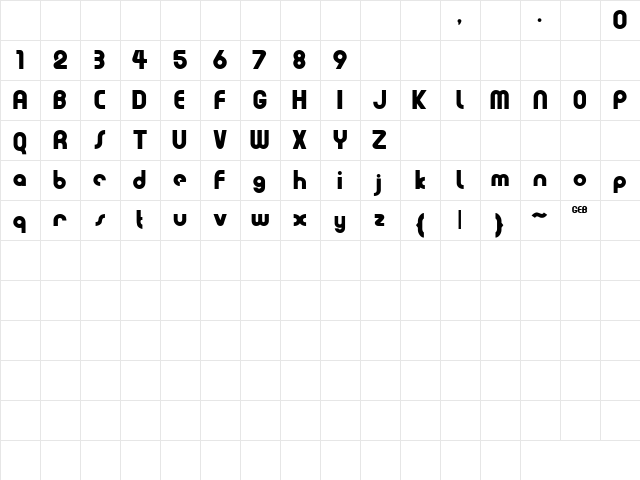
DoubleTrouble Regular
Design Context for DoubleTrouble Typeface
DoubleTrouble offers clean, dependable letterforms without strong stylistic allegiance, making it a practical choice for designers who need flexibility.